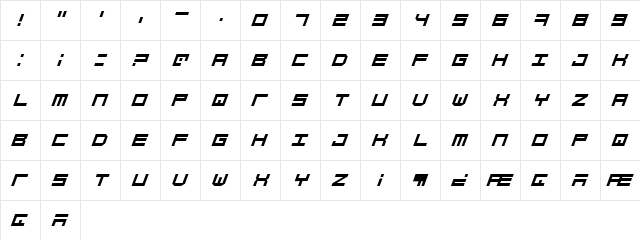
Simply Mono Oblique Regular Font Preview
| Foundry | La Tipomatika |
| Designer | La Tipomatika |
Design Context for Simply Mono Oblique Typeface
Simply Mono Oblique uses fixed-width spacing throughout, giving it the structured, systematic character associated with coding environments and technical documentation. The dynamic lean of this cut emphasises speed and emphasis in any layout.
Pro Tip: Use Simply Mono Oblique with slightly increased line-height for extended reading — fixed-width spacing can feel dense in longer passages without extra breathing room.